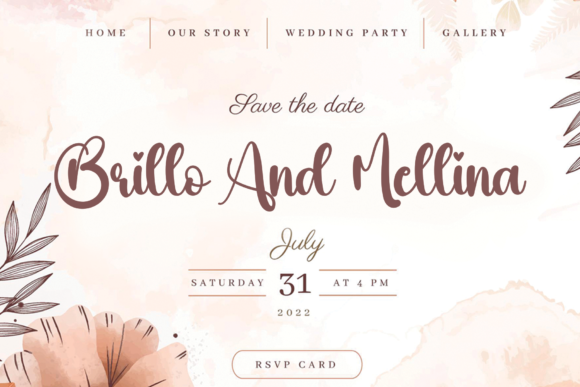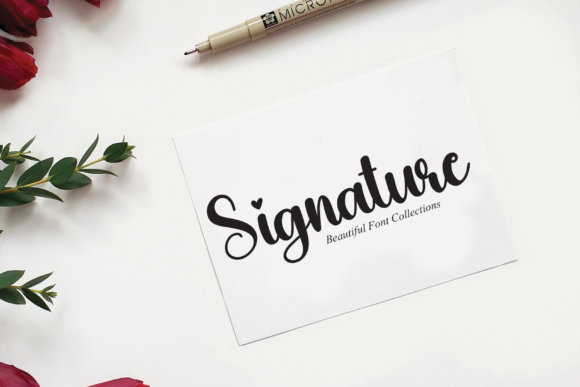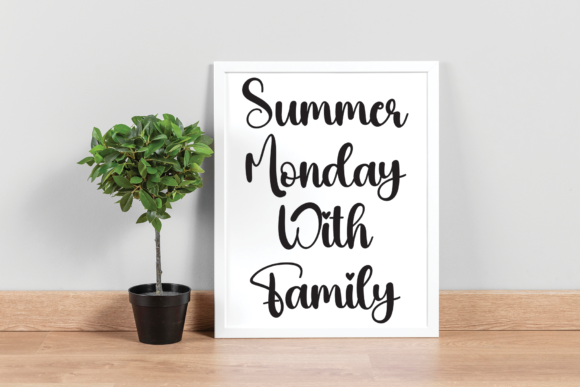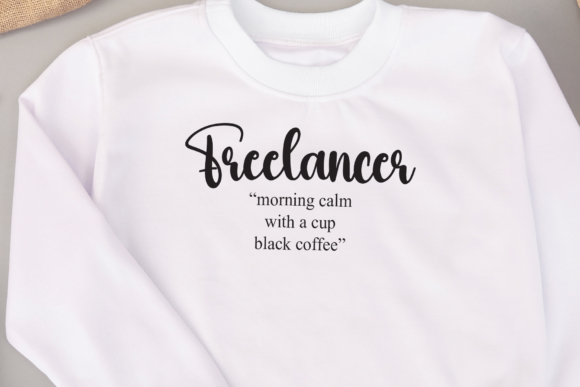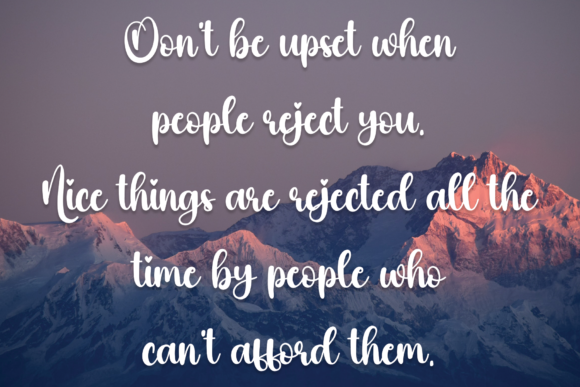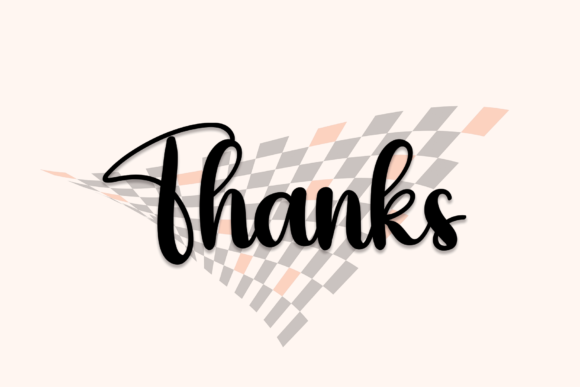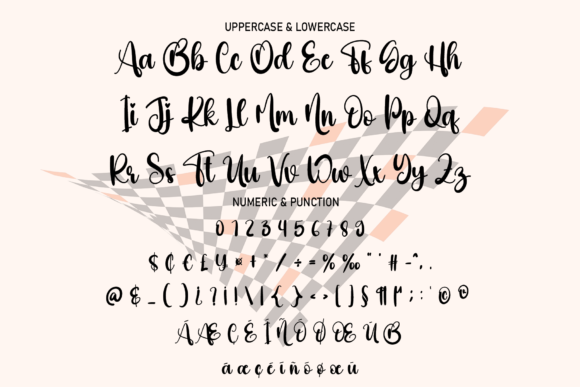
Finish Font
About Finish Font
Finish is a classic and simple handwritten script font that exudes timeless appeal, crafted with a touch of randomness and freedom in its style. This versatile typeface proves to be a valuable asset for an extensive array of creative applications, ranging from logotypes and headline fonts to corporate identity, brand identity, apparel industry designs, posters, music artwork, movie titles, games, magazines, books, comics, cartoons, YouTube content, Instagram visuals, websites, and various other creative design projects.
The distinct charm of Finish lies in its ability to seamlessly blend classic simplicity with a random and free-spirited aesthetic. This unique combination makes the font suitable for a diverse range of design contexts, providing an adaptable canvas for creative expression. Whether you’re aiming for a polished corporate identity or infusing a playful vibe into a comic strip, Finish stands ready to meet the demands of different themes and styles.
In the realm of corporate and brand identity, Finish brings a classic elegance that can enhance logos and visual elements. Its handwritten style adds a personal and authentic touch, fostering a connection between brands and their audience. For the apparel industry, music, and entertainment sectors, Finish’s versatility enables it to resonate with various styles, capturing the essence of each industry it graces.
Creative projects such as posters, books, and comics benefit from the authentic and expressive quality that Finish injects into the design. In the digital landscape, from YouTube thumbnails to Instagram posts, Finish emerges as a standout font, making your content visually appealing and engaging.
Whether you’re a designer working on a comprehensive branding project, an illustrator crafting a comic series, or a content creator producing multimedia for diverse platforms, Finish positions itself as a reliable and versatile font. Its classic simplicity, coupled with the spontaneous charm of its random and free style, makes Finish a go-to choice for a multitude of creative endeavors. With Finish, your designs effortlessly achieve a harmonious balance between timeless elegance and creative spontaneity, leaving a lasting impression on your audience.